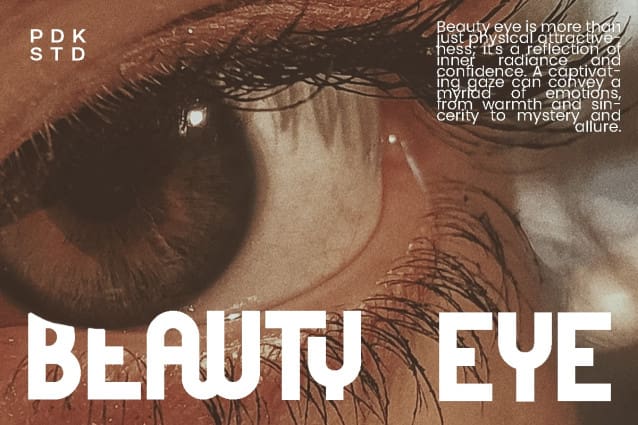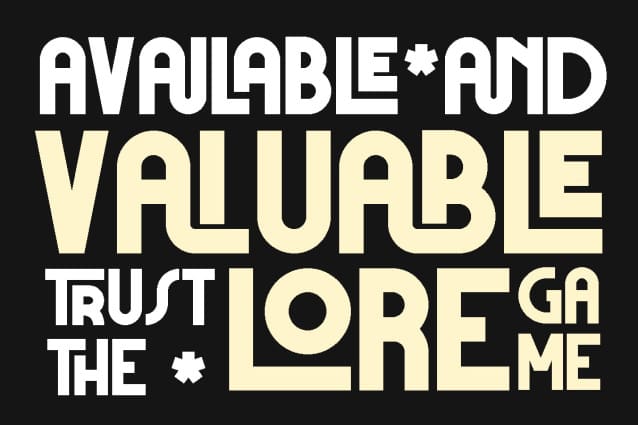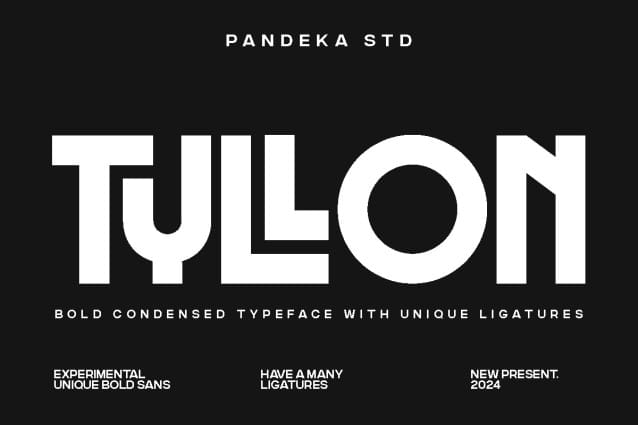
Tyllon Font
Tyllon Font is chunky strokes, sharp angles, and a commanding presence that demands to be seen. It’s got that modern, urban edge that works perfectly for cutting-edge branding, attention-grabbing headlines, and impactful social media graphics.